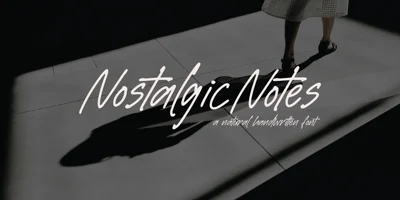
Nostalgic Notes Font
Nostalgic Notes Font is perfect for vintage music album covers, retro record labels, classic piano recital programs, nostalgic café signage, antique music box branding, vintage radio show graphics, old-fashioned sheet music headers, memory lane marketing campaigns, heritage music festival posters, and sentimental greeting card designs. This evocative typeface brings timeless musical charm and emotional resonance to projects celebrating the golden age of melody and musical heritage.
What makes Nostalgic Notes Font exciting is its extraordinary ability to transport audiences through time with letterforms that whisper melodies from bygone eras and capture the romantic essence of classic musical traditions. The font features elegant character details with vintage flourishes and musical-inspired embellishments that evoke the warmth of vinyl records, handwritten love letters, and candlelit piano performances. Its sentimental design elements reflect the emotional power of music to connect generations and preserve precious memories, making it perfect for brands seeking to evoke deep emotional connections through nostalgic musical storytelling.
Nostalgic Notes Font family includes multiple melodic variations such as Regular, Bold, Script, and Ornate styles, along with complementary Musical and Decorative versions. Each style maintains the font's distinctive vintage musical character while providing comprehensive design flexibility for music industry heritage branding and sentimental marketing applications that celebrate musical history and emotional connection.
Whether you're creating vintage music identities, designing nostalgic entertainment campaigns, or developing memory-focused brand experiences, Nostalgic Notes Font provides the sentimental typography needed for truly moving musical communication. This font seamlessly combines vintage authenticity with emotional appeal, making it an exceptional choice for projects requiring both historical accuracy and heartfelt connection. Its lovingly crafted letterforms ensure outstanding performance across album artwork, concert programs, and promotional materials where nostalgic typography creates powerful emotional bridges between past musical treasures and contemporary audiences seeking authentic musical experiences.